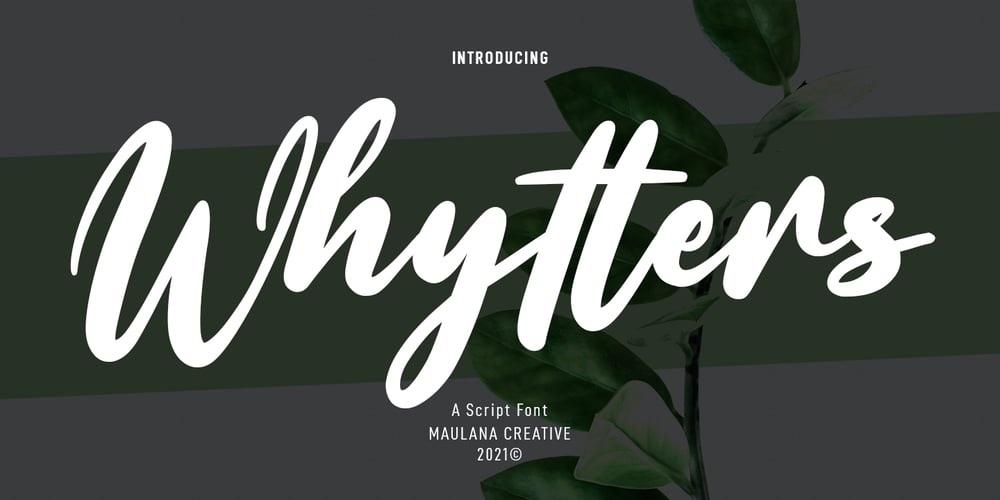
Whytters Font Family was designed by Gilang Maulana and published by Maulana Creative. Whytters contains 1 styles and family package options. Whytters is a modern script font. With regular contrast stroke, fun character with some of ligatures. To give you an extra creative work. Whytters font support multilingual more than 100+ language. This font is good for logo design, Social media, Movie Titles, Books Titles, a short text even a long text letter and good for your secondary text font with sans or serif. Make a stunning work with Whytters font. Cheers, Maulana Creative